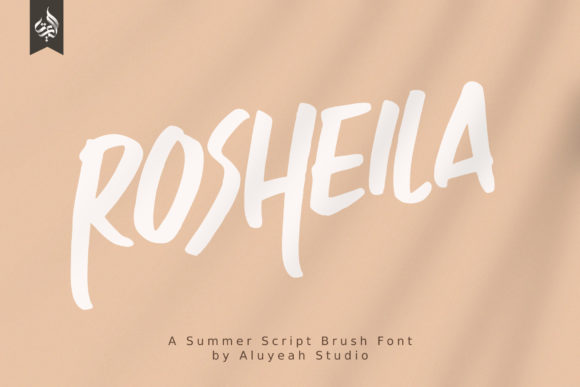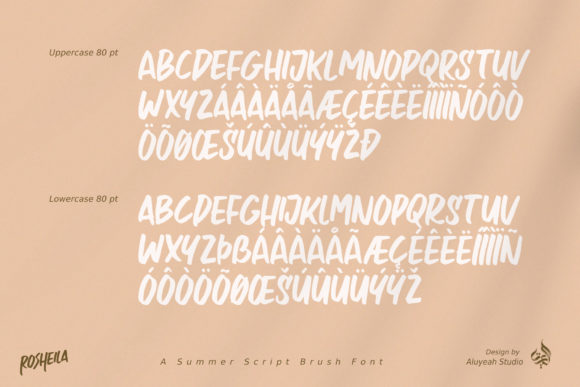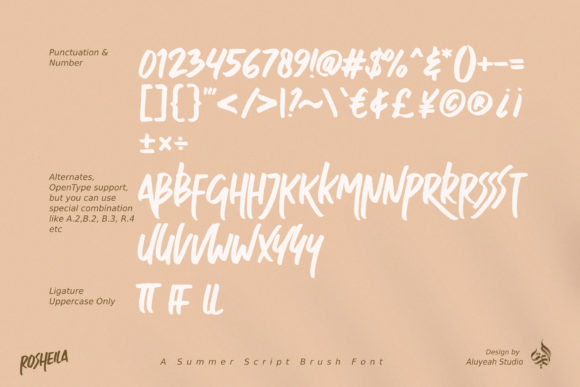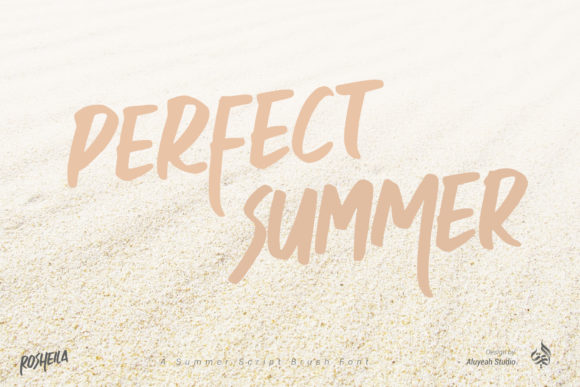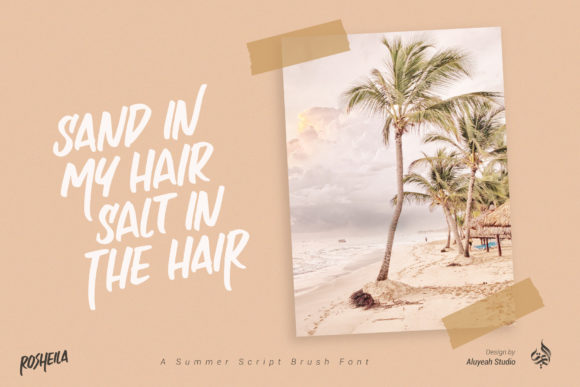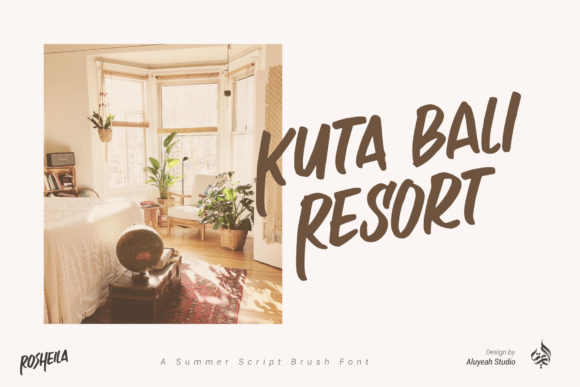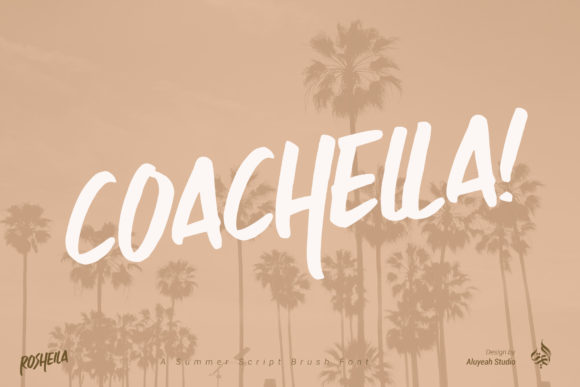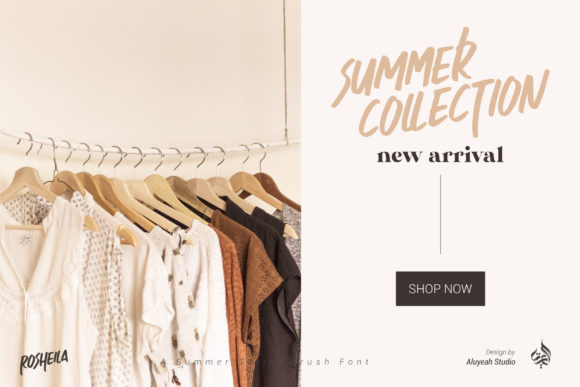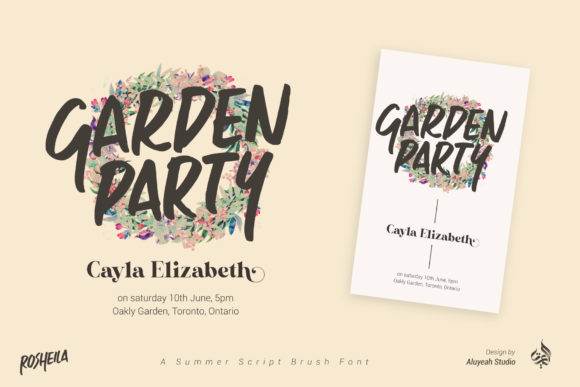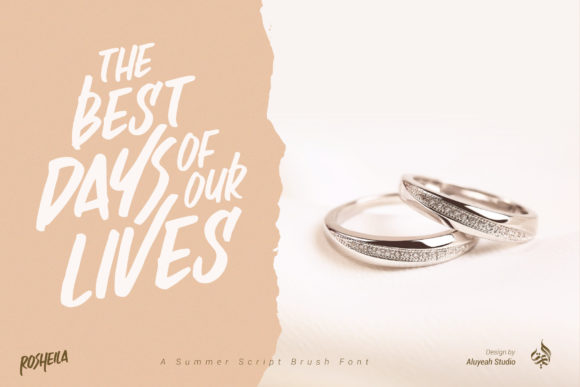
AL Rosheila Font
About AL Rosheila Font
Rosheila is a cute and casual handwritten font with a summer feel. It will elevate a wide range of design projects to the highest level, be it branding, headings, wedding designs, invitations, signatures, logos, labels, and much more!